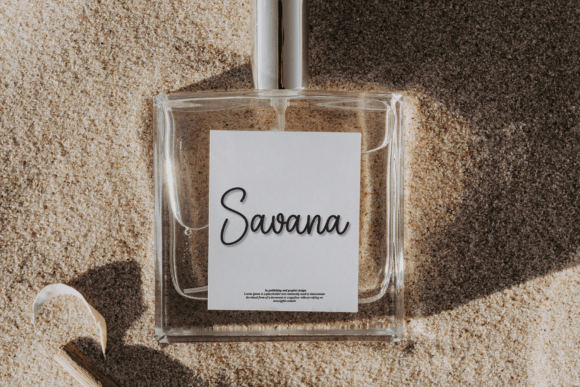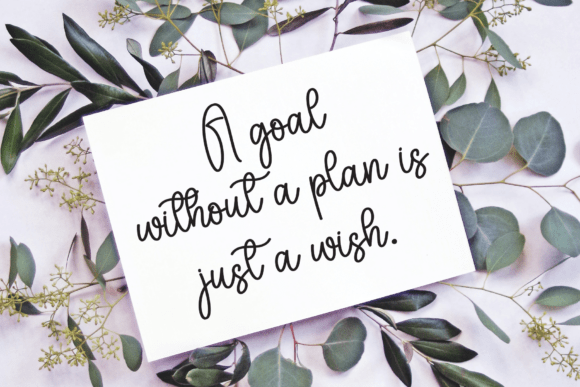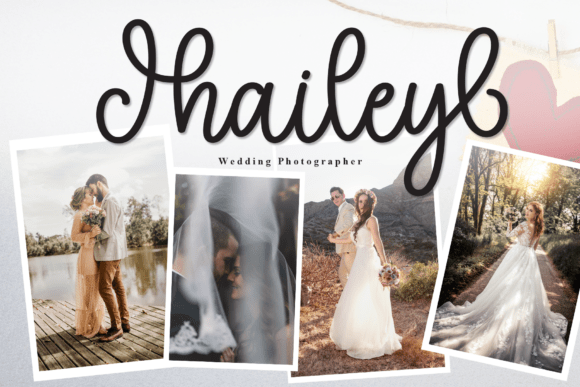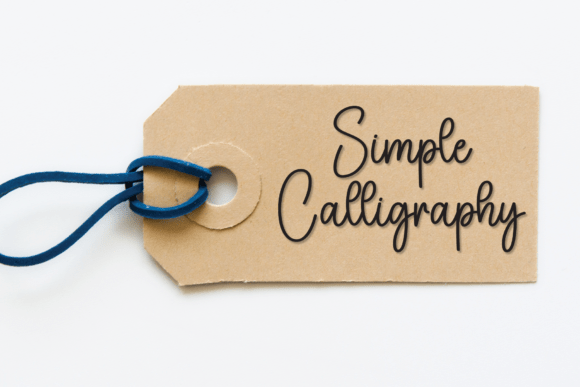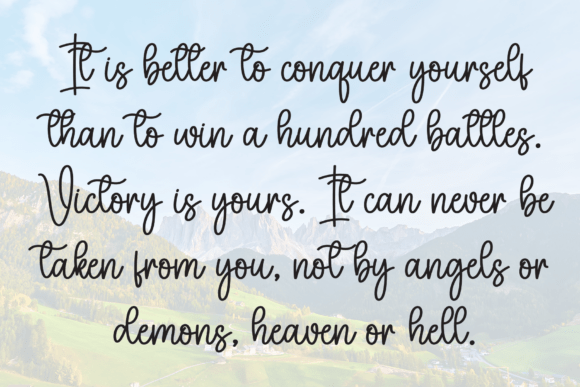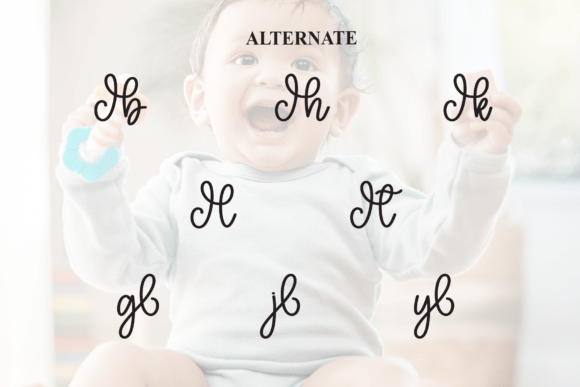
Baby Font: The Ultimate Handwritten Script for Delightful Designs
Are you looking for a font that captures the essence of childhood and brings a playful touch to your designs? Look no further than the Baby Font, a charming handwritten script font that is perfect for creating delightful and engaging content. In this article, we’ll explore the features and benefits of the Baby Font, and how it can elevate your designs for baby shower invitations, nursery prints, kids’ branding, clothing designs, and more.
Introducing Baby Font: A Playful and Charming Handwritten Script
Baby Font is a carefully crafted handwritten script font that embodies the innocence and joy of childhood. Its smooth curves, soft strokes, and bold presence make it an ideal choice for designs that require a playful and whimsical touch. The font’s handcrafted look is balanced with professional polish, ensuring that it is both fun and highly legible. Whether you’re working on a logo for a children’s brand or a warm personal gift, Baby Font brings a joyful and approachable vibe to every project.
Baby Font is a versatile font that can be used for a wide range of design projects, including:
- Baby shower invitations: Create adorable and eye-catching invitations that set the tone for a joyful celebration.
- Nursery prints: Design beautiful and personalized prints for nurseries, featuring the baby’s name, special quotes, or inspiring messages.
- Kids’ branding: Develop a strong brand identity for children’s products or services with a font that speaks to their playful and curious nature.
- Clothing designs: Add a touch of whimsy to your clothing designs, from onesies to t-shirts, with a font that is both fun and stylish.
- Playful product packaging: Stand out in the market with packaging that features a unique and captivating font.
Why Choose Baby Font?
With Baby Font, you can:
- Add a playful and whimsical touch to your designs.
- Create engaging and delightful content that captures the essence of childhood.
- Enjoy a high level of legibility and readability, even at small font sizes.
- Benefit from a versatile font that can be used for a wide range of design projects.
Baby Font is a charming handwritten script font that is perfect for designers and crafters looking to add a playful touch to their designs. With its smooth curves, soft strokes, and bold presence, it’s an ideal choice for baby shower invitations, nursery prints, kids’ branding, clothing designs, and more. Its compatibility with a range of software and platforms, combined with its PUA-encoded features, make it easy to use and customize. Whether you’re a professional designer or a crafty DIY enthusiast, Baby Font is sure to bring a joyful and approachable vibe to every project.